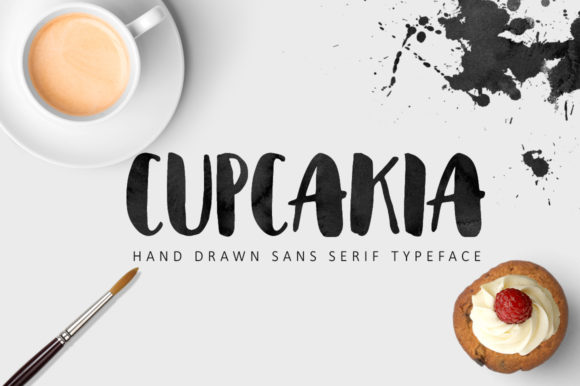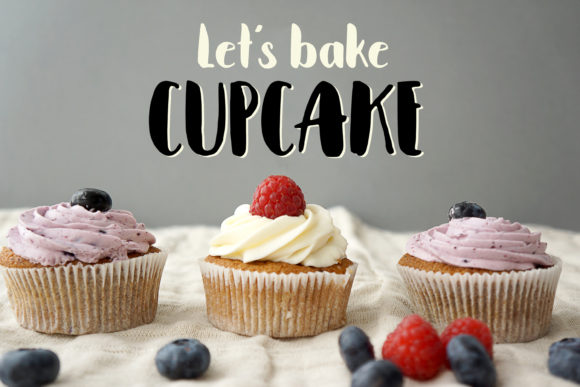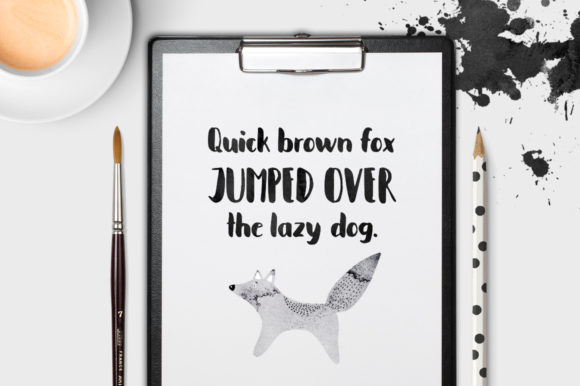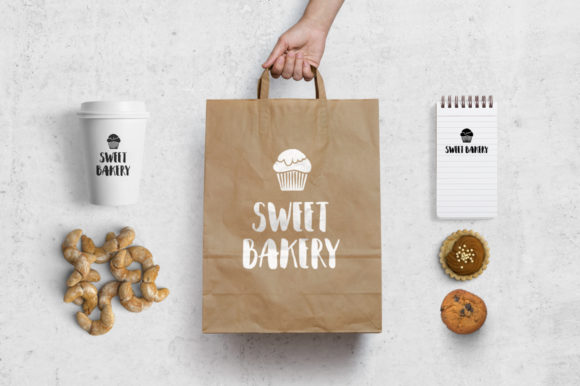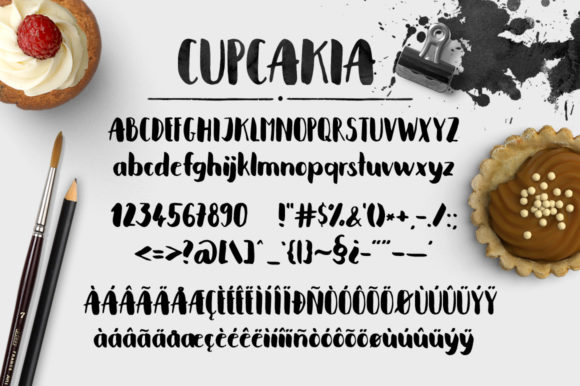
Cupcakia Font
About Cupcakia Font
Cupcakia is a funny handwritten sans-serif brush typeface that will a handwritten and artistic feel to any design idea.